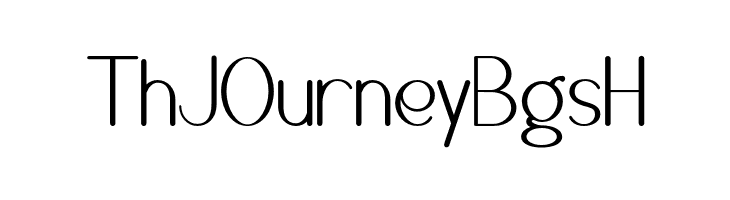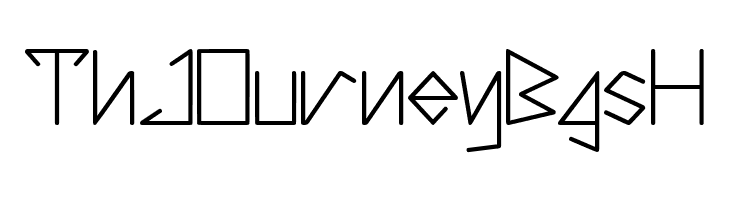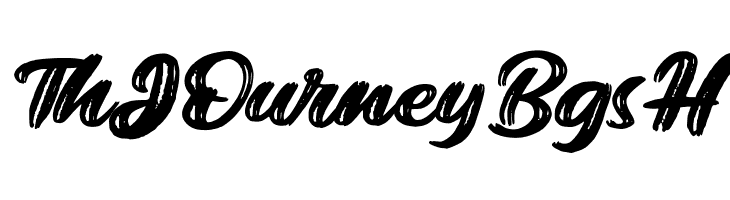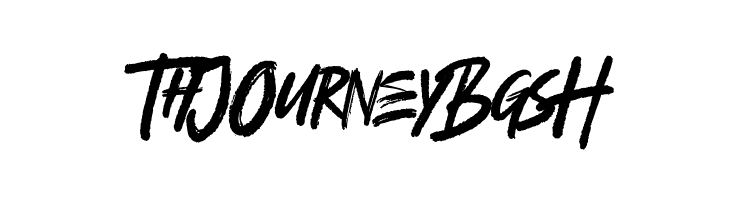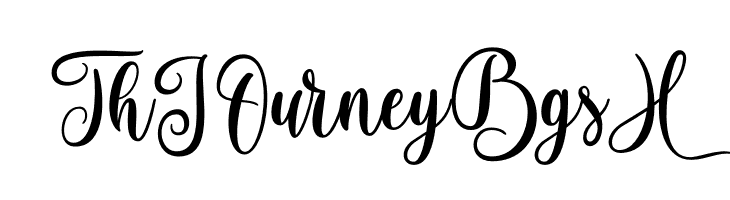
A bold, brush-style script font with dynamic and expressive strokes.
A bold, geometric font with a modern and edgy style.
A bold, brush-style font with dynamic, textured strokes.
A bold, brush-style font with dynamic strokes and a hand-drawn appearance.
An elegant, flowing script font with intricate loops and flourishes.
An elegant, flowing script font with a classic calligraphic style.
A decorative serif font with ornate uppercase and classic lowercase letters.
An elegant script font with flowing, decorative strokes.
A modern, geometric font with clean lines and a sleek design.
A geometric, angular font with a modern and edgy style.